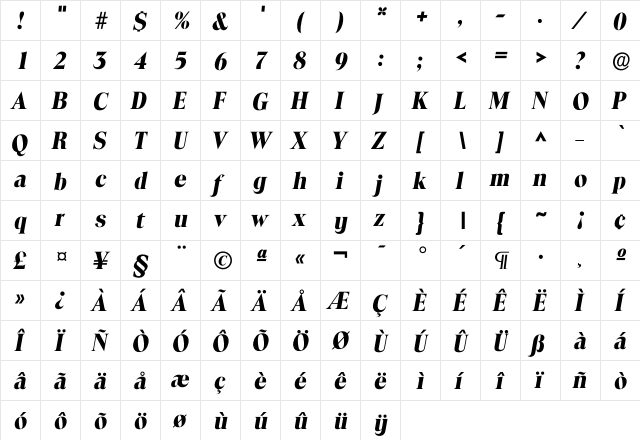
Itoledo Bold
Design Context for Itoledo Typeface
Itoledo offers clean, dependable letterforms without strong stylistic allegiance, making it a practical choice for designers who need flexibility. The heavy weight commands attention and anchors typographic hierarchies.